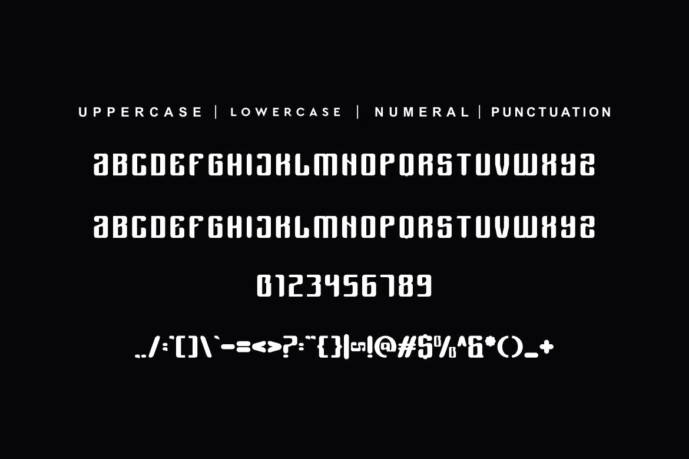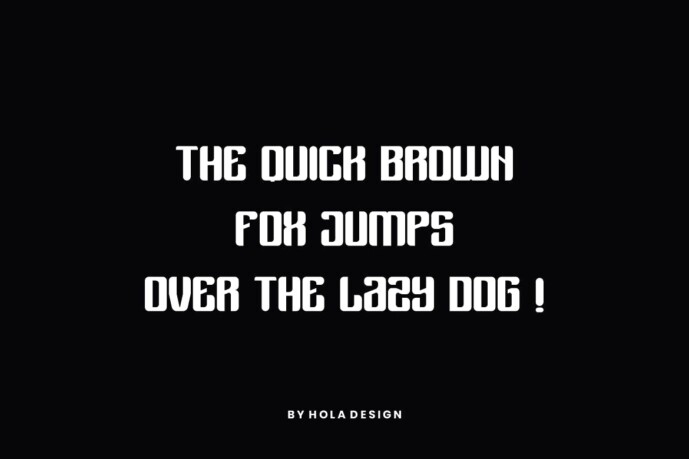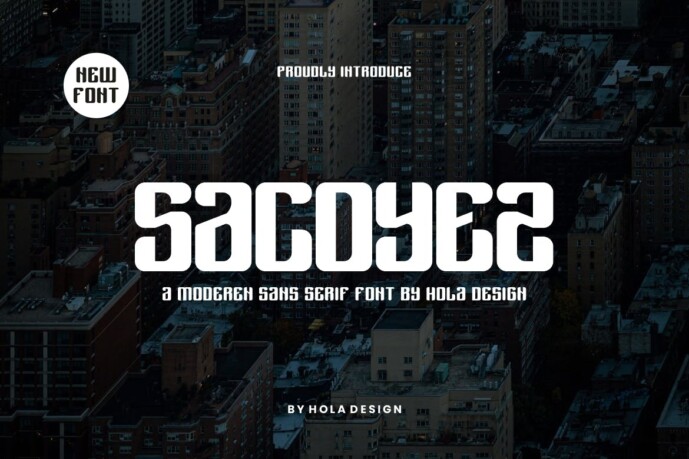
Sacoyez Font
Designer: Hola Design
Sacoyez Font – Modern Sans Serif font is unique . Ready to use for your designs, such as labeling, movie scene, poster, movie title, concerts, album covers, logos and much more